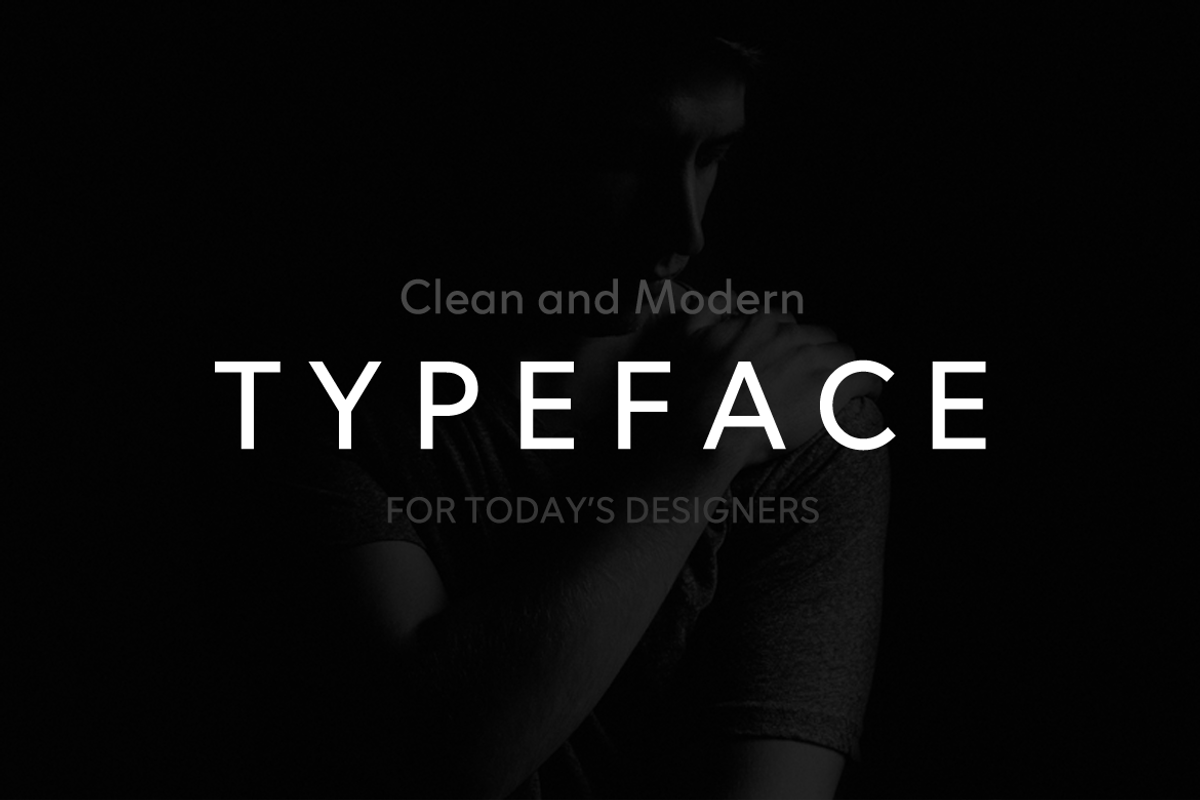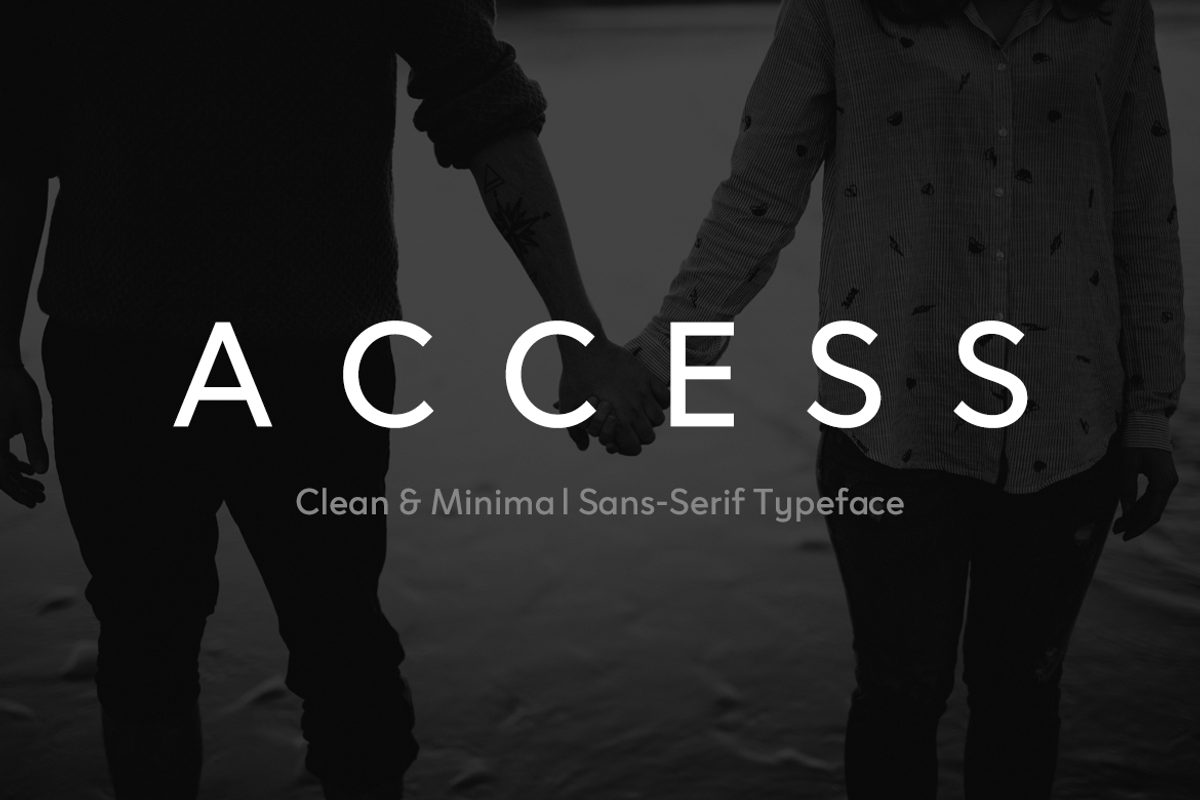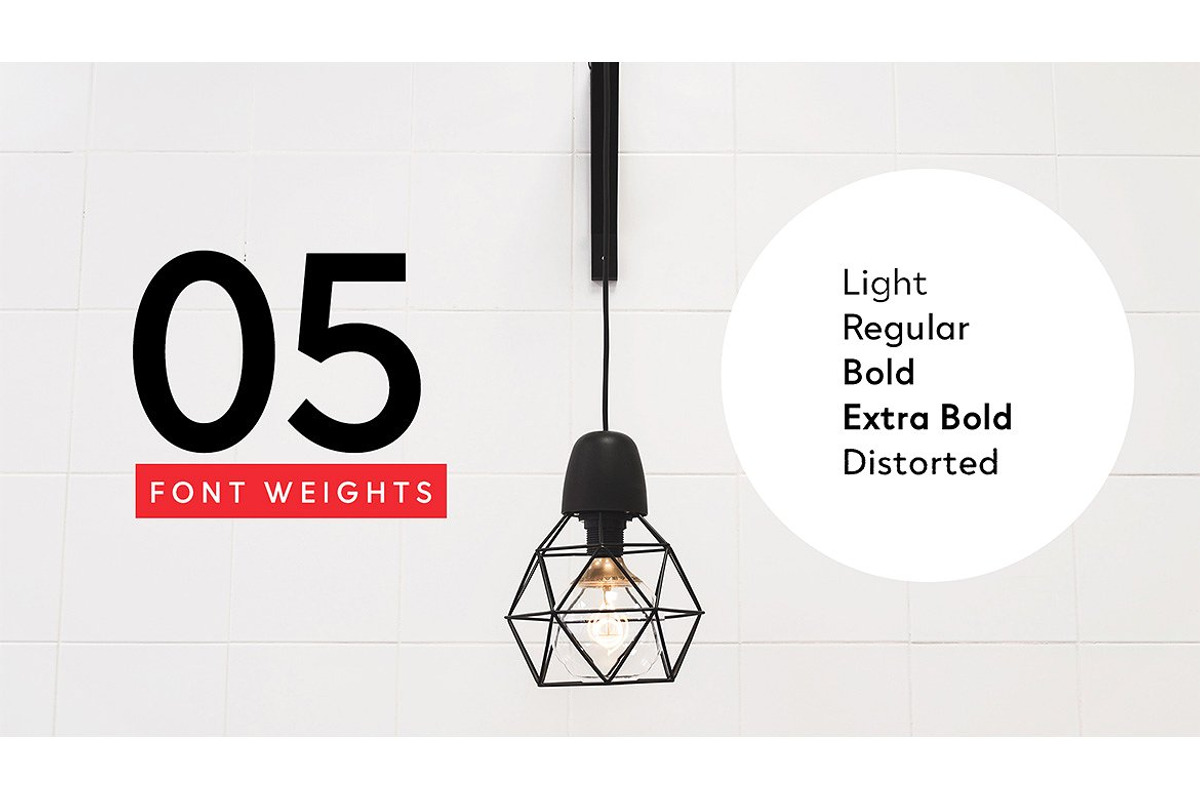
ACCESS - Modern Typeface + Web Fonts
ACCESS is a modern Sans Serif typeface inspired by some of world's best Sans Serif typefaces. ACCESS will be best suited for creating nicely looking text for any type of medium. The font comes with 5 weight (Including a Distorted version) with all formats including Web Fonts.